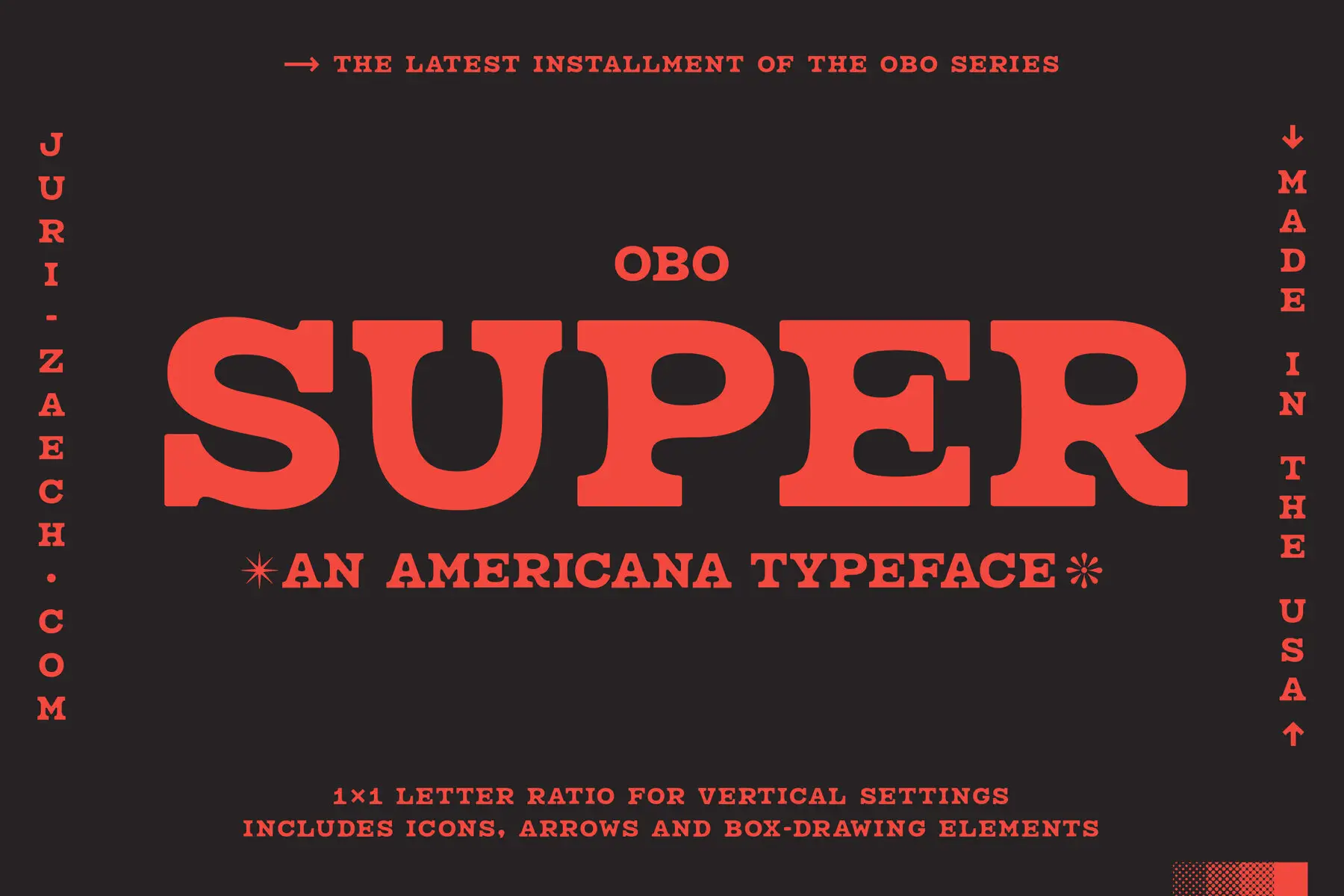
OBO Super Font
OBO Super
OBO Super is the third installment of the OBO series, a type collection based on a square. Every character is mapped to a 1x1 ratio which allows for horizontal and vertical settings alike. Or mixed, like crosswords. OBO Super is a soft and heavy serif design motivated by vintage lettering of the West. It’s a 70s Americana look, reminiscent of times when photography was shot on film and mixtapes were recorded on cassettes. If you are looking to brand a contemporary motorcycle apparel brand that dwells on the spirit of the American West, or if you need a bit of that diner grease for the look of a cool eatery, OBO Super has you covered. At the core OBO Super is a monospaced font. Every letter has the same width. But each letter is also as tall as it is wide—allowing for horizontal, vertical, or mixed layouts, like crosswords. For strictly horizontal typesetting there is the option to turn on kerning and swap-in alternative designs of a number of characters. This creates a cleaner texture across words and phrases. OBO Super is most comfortable in cool branding projects and display settings. A series of icons and arrows complete the extensive character set.